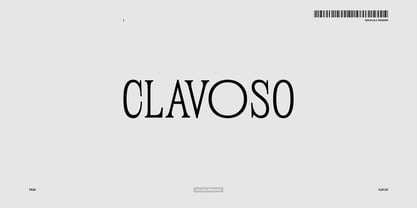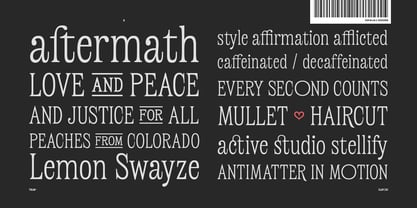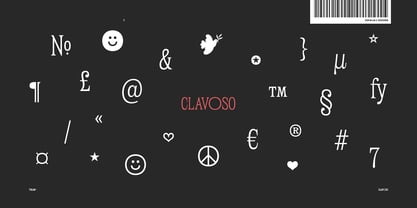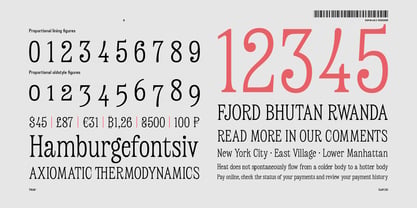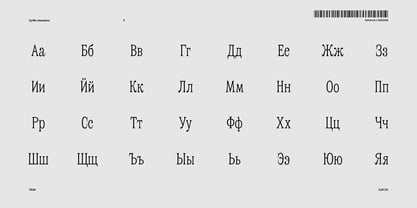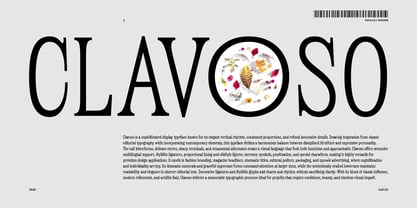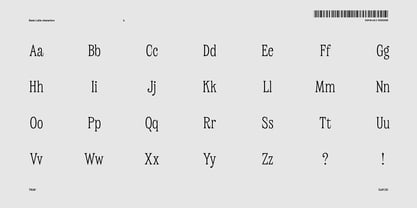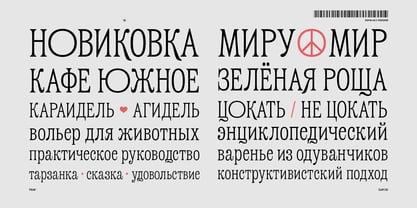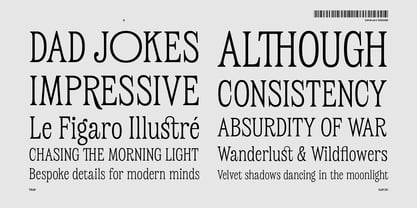
The Clavoso Font Family was designed by Sergey Godovalov and published by True Story Letterworks. Clavoso contains 1 styles. More about this family
Clavoso is a sophisticated display typeface known for its elegant vertical rhythm, condensed proportions, and refined decorative details. Inspired by classic editorial typography and infused with contemporary elements, this typeface strikes a harmonious balance between structured discipline and expressive personality. The tall letterforms, delicate curves, sharp terminals, and ornamental alternates create a visual language that is both luxurious and approachable. Clavoso offers extensive multilingual support, stylistic ligatures, proportional lining and oldstyle figures, currency symbols, punctuation, and special characters, making it versatile for premium design applications. It shines in fashion branding, magazine headlines, cinematic titles, cultural posters, packaging, and upscale advertising, where sophistication and individuality are key. Its dramatic numerals and graceful uppercase forms command attention at larger sizes, while the meticulously crafted lowercase maintains readability and elegance in shorter editorial text. Decorative ligatures and stylistic glyphs enhance charm and rhythm without sacrificing clarity. With its blend of classic influence, modern refinement, and artistic flair, Clavoso delivers a memorable typographic presence ideal for projects that demand confidence, beauty, and timeless visual impact.
Designers: Sergey Godovalov
Foundry: True Story Letterworks